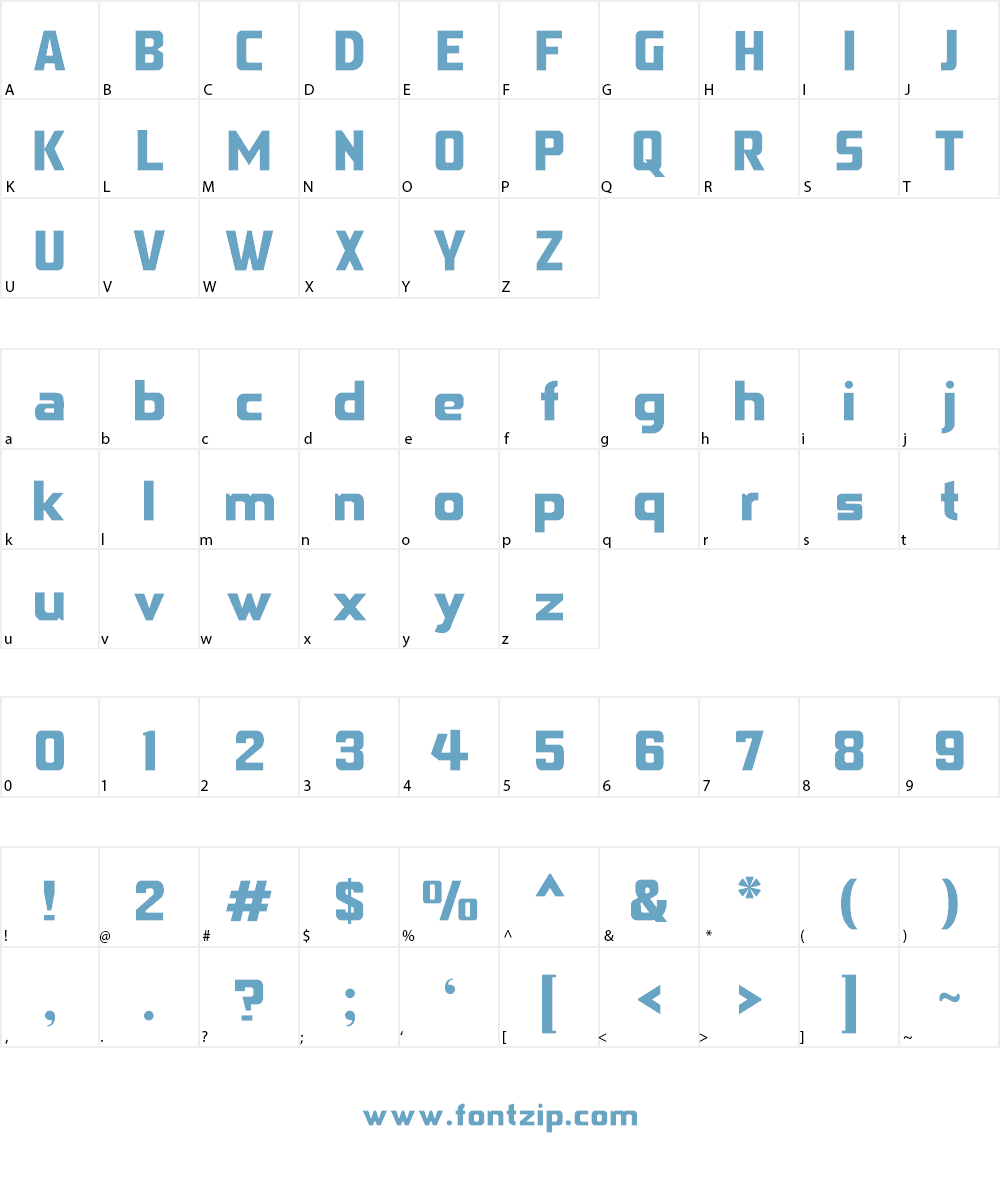
This is a Cherokee Unicode font. Gageda means big or large in Cherokee. this is my bold display font for the Cherokee usage. You kind of see this "style" of font in allot of places now-a-days.